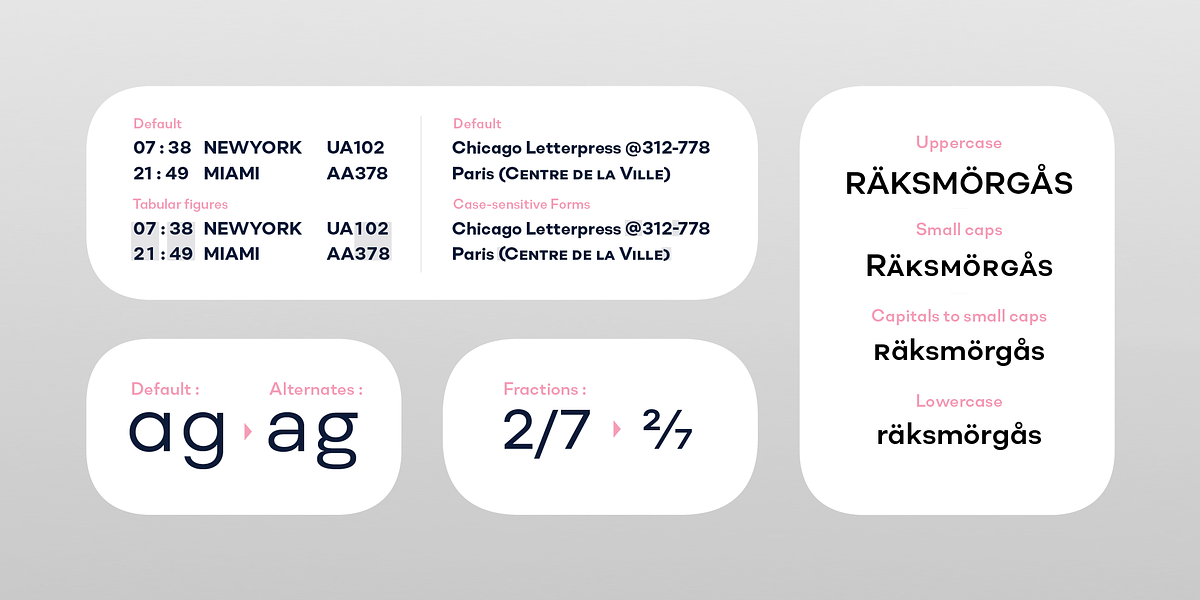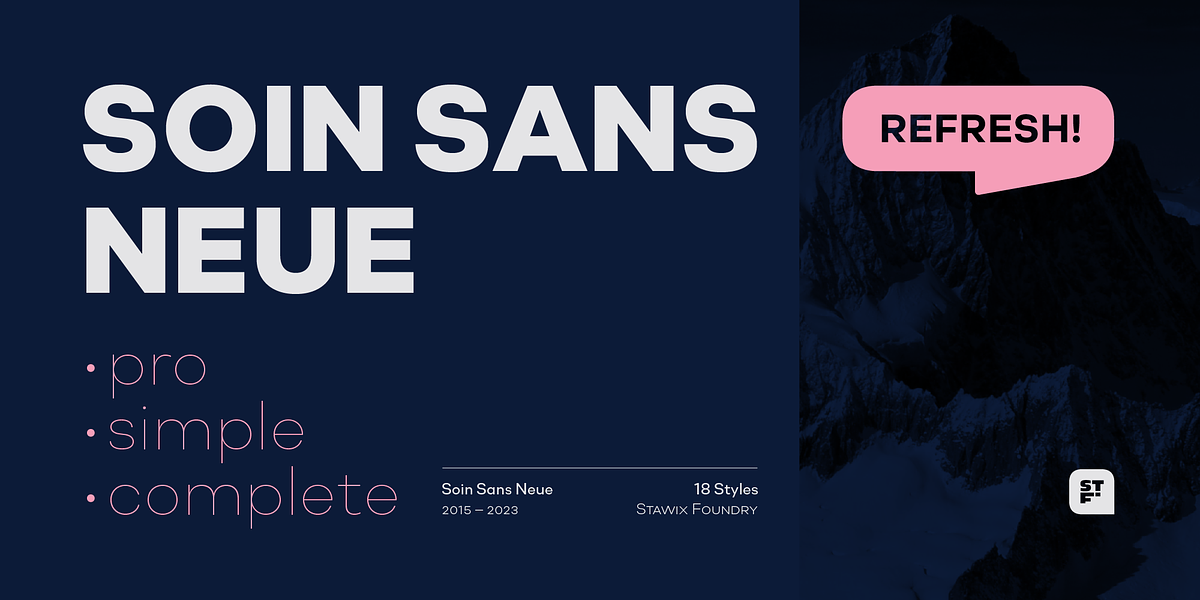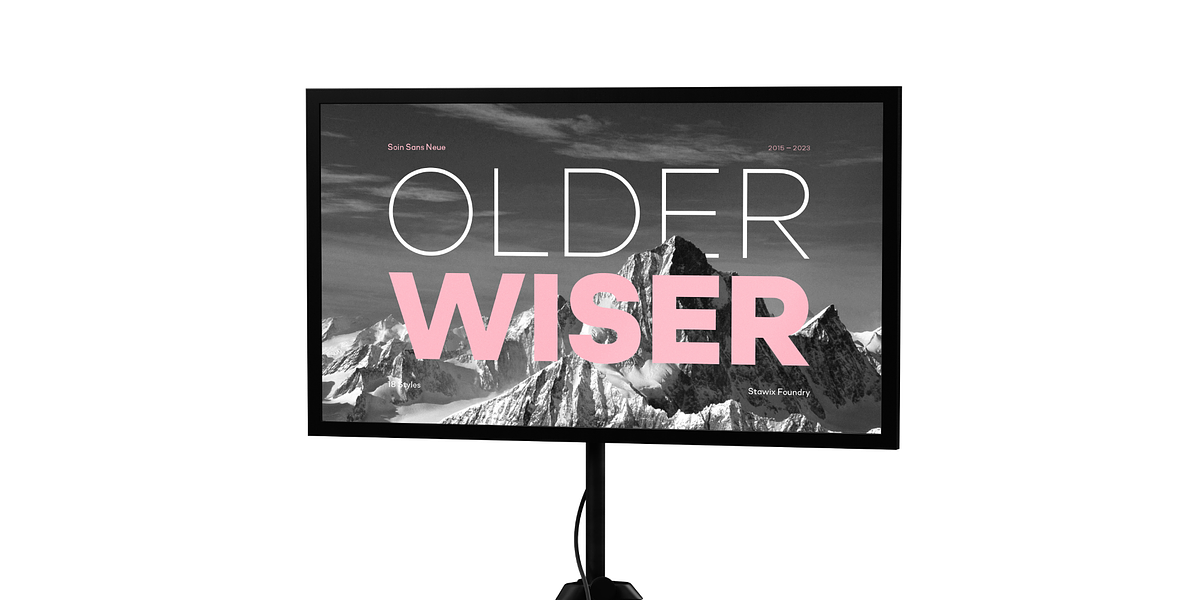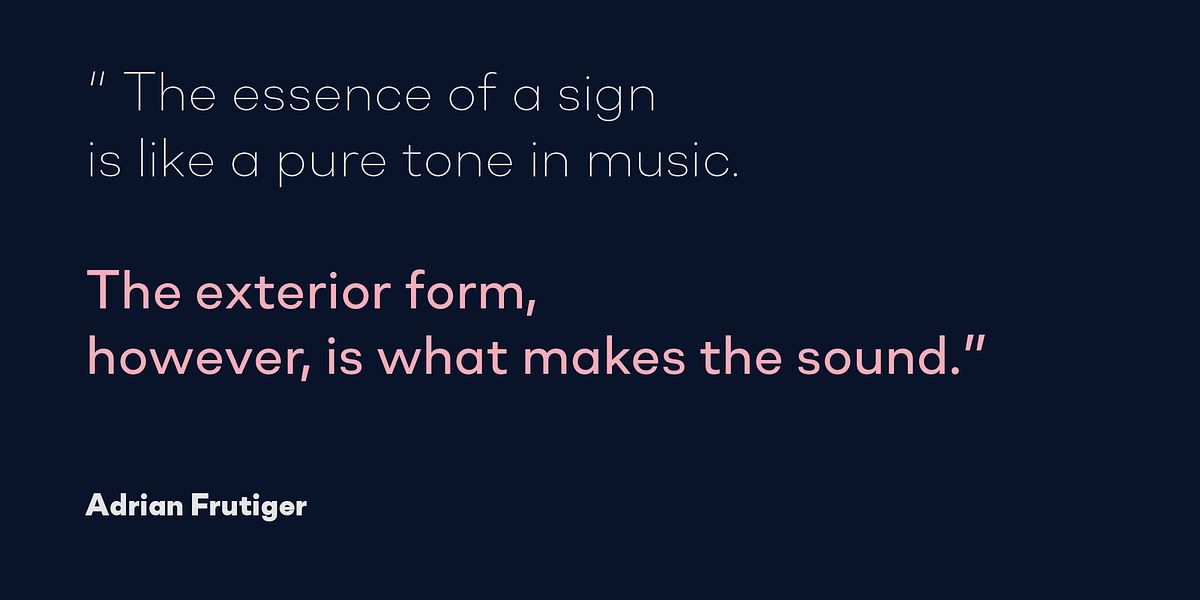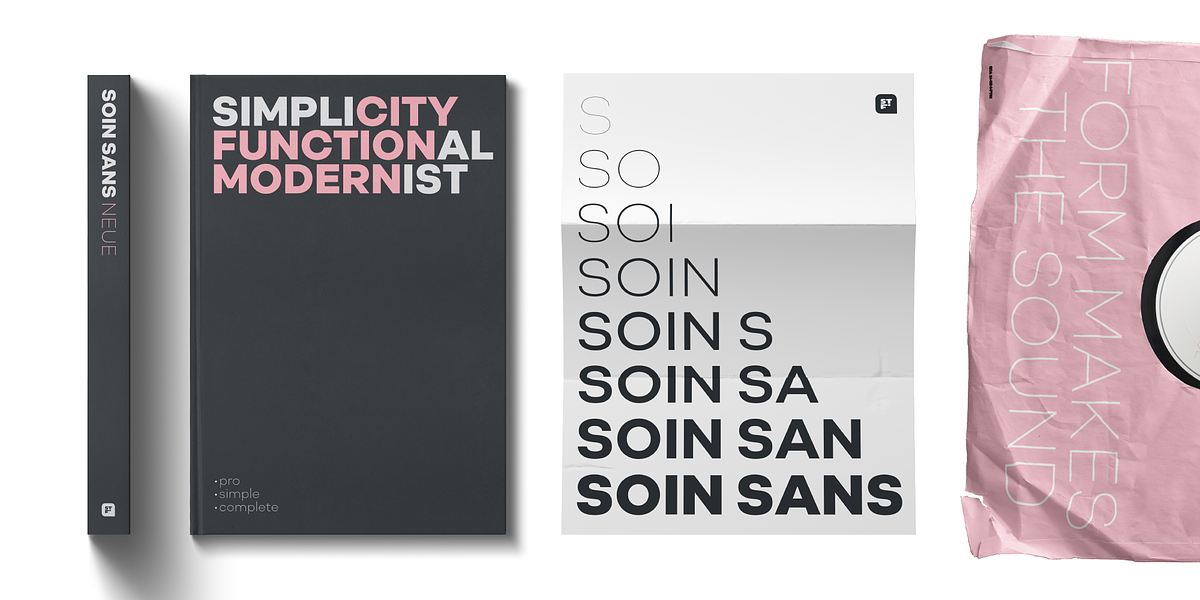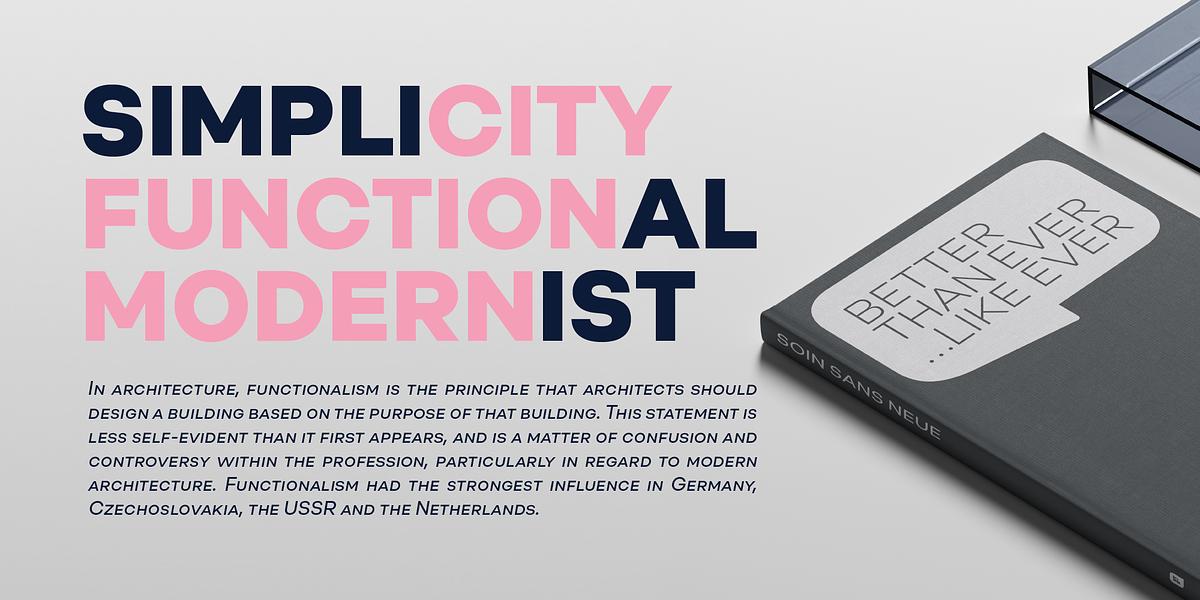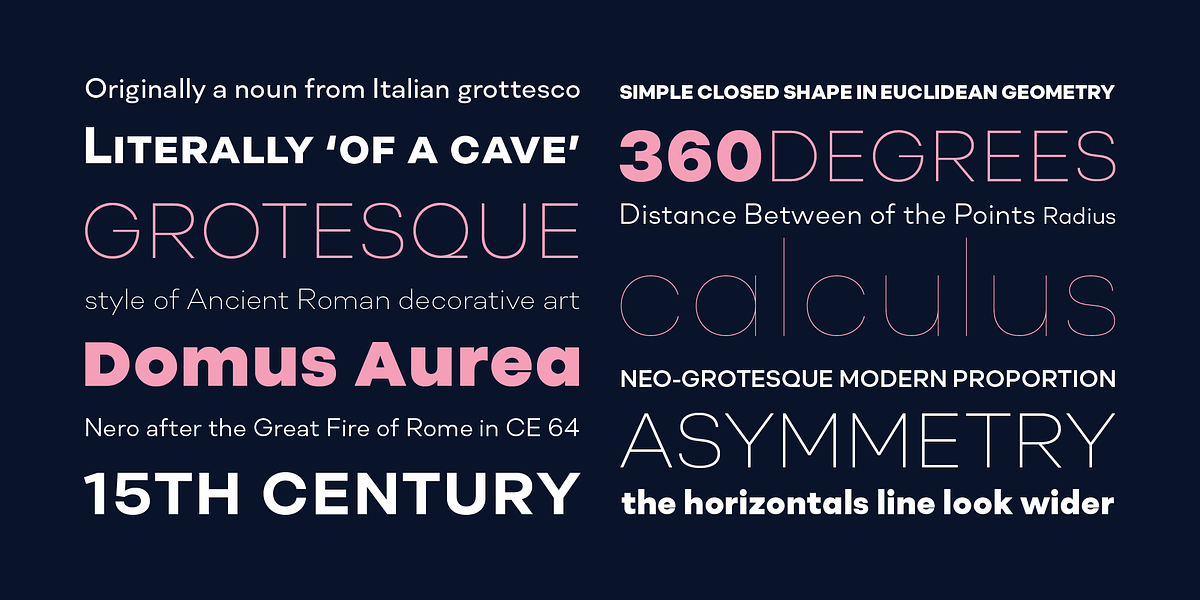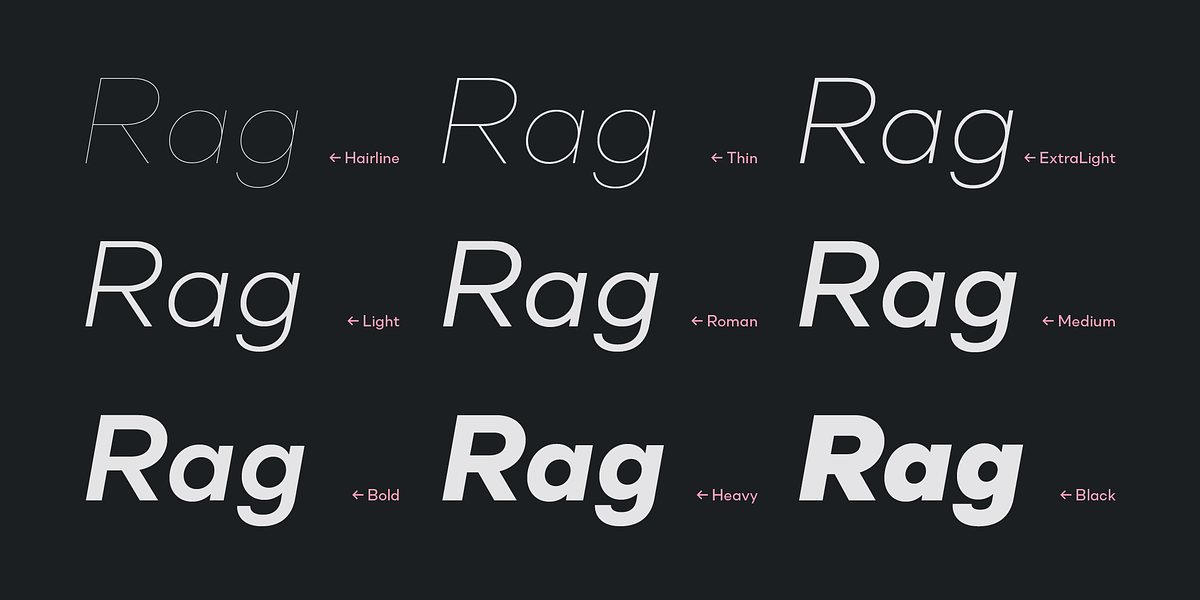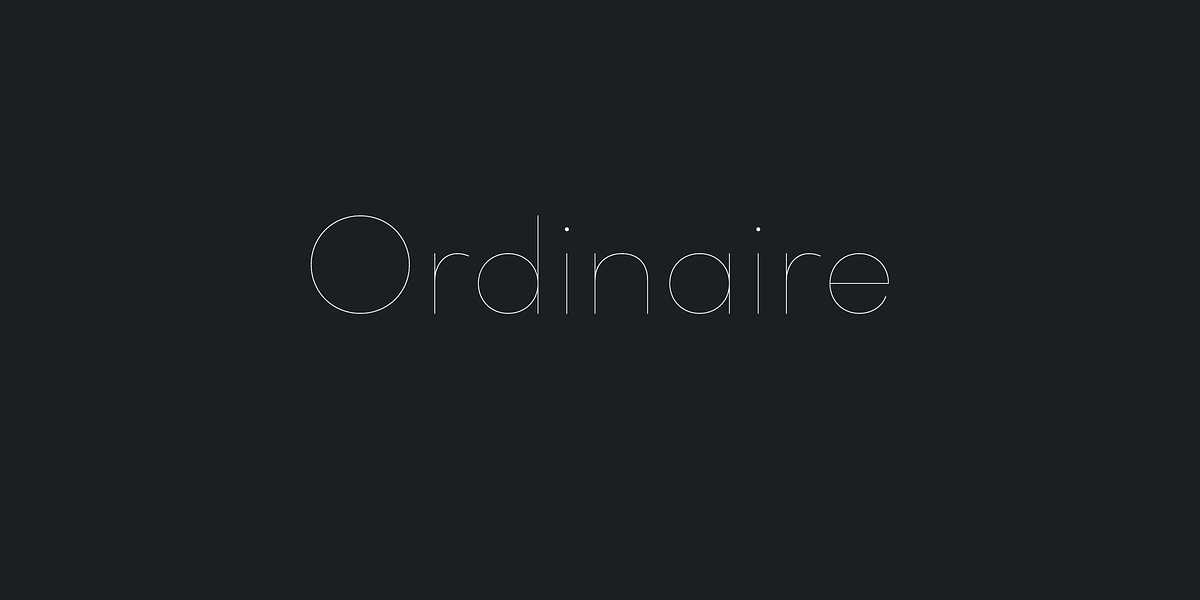
Soin Sans Neue
Soin Sans Neue is a modern geometric sans serif font designed by Stawix Foundry. It aims for simplicity and clarity while retaining a touch of humanist warmth and a subtle hint of oldstyle influence. The font features a wide range of weights and widths to accommodate diverse design needs. Its comprehensive feature set, including stylistic alternates, fractions, and proportional figures, makes it adaptable for various projects from branding to website and print design.